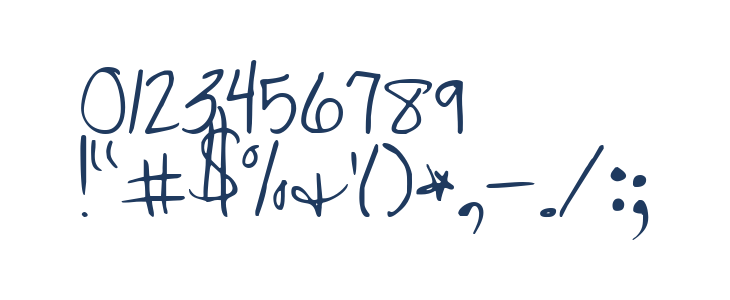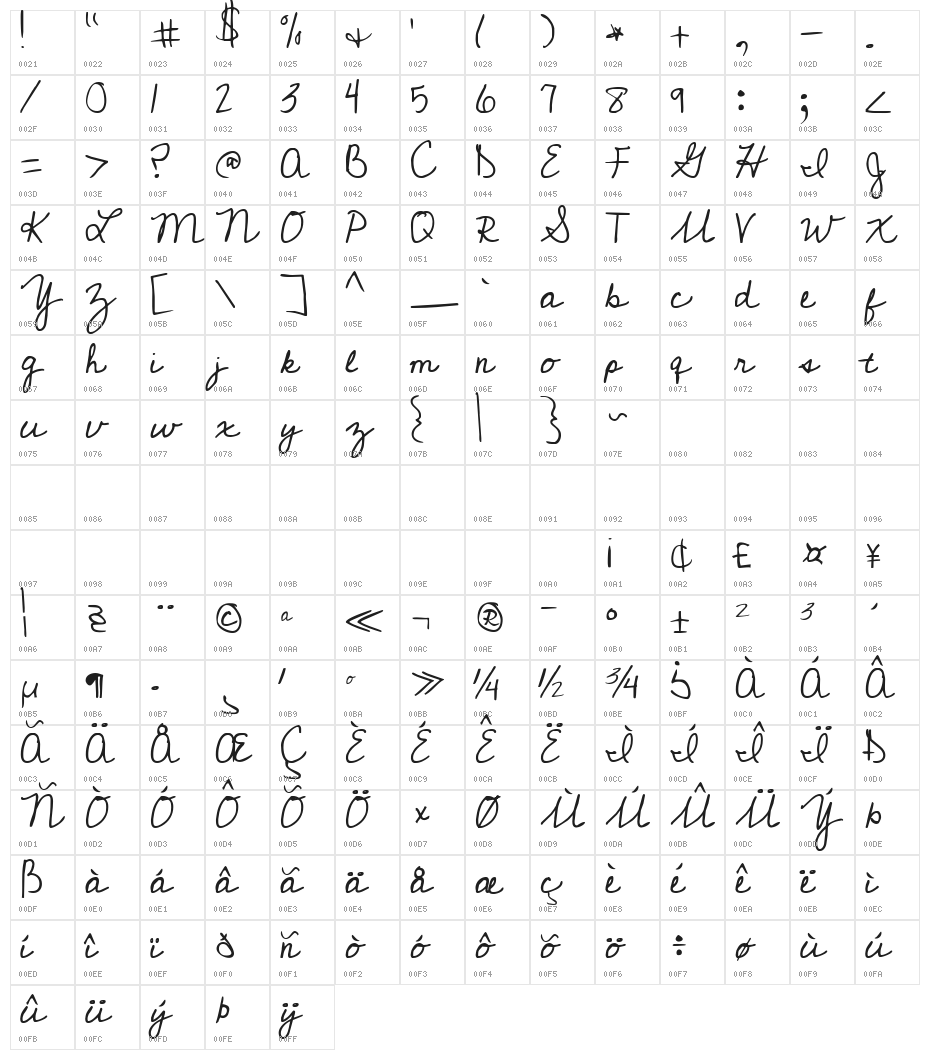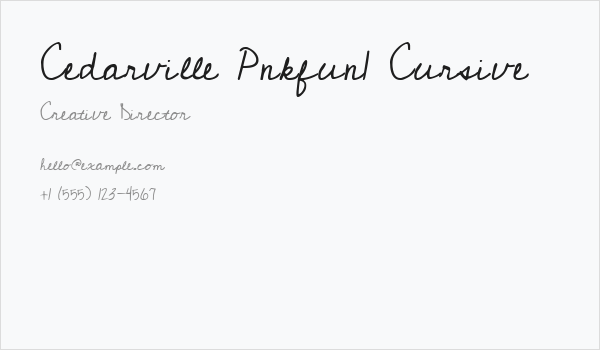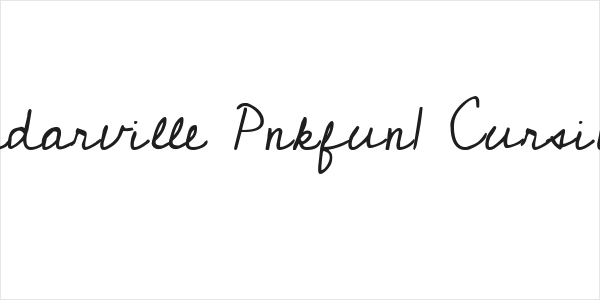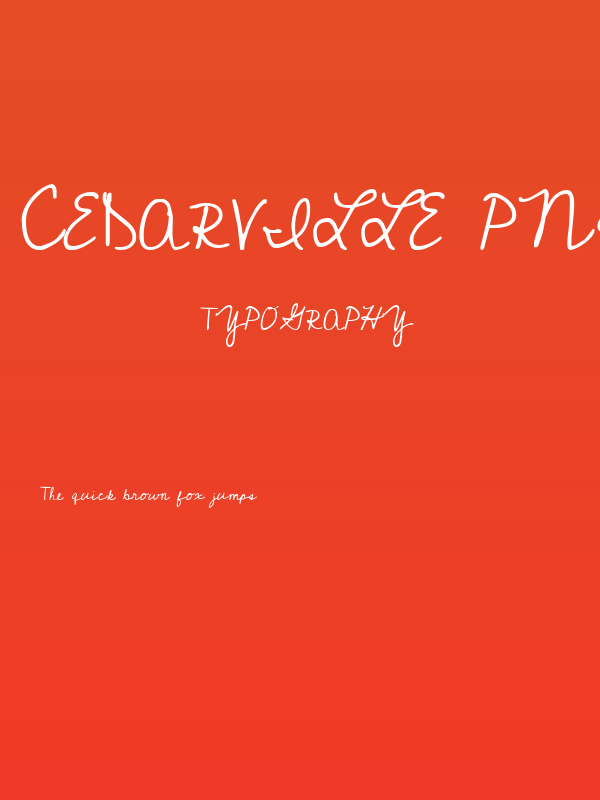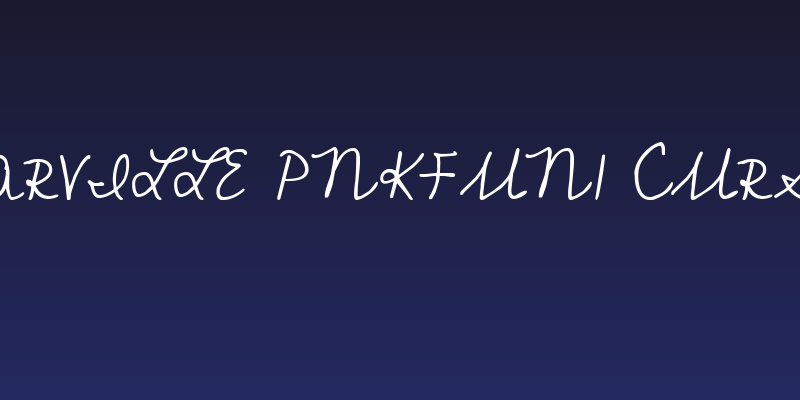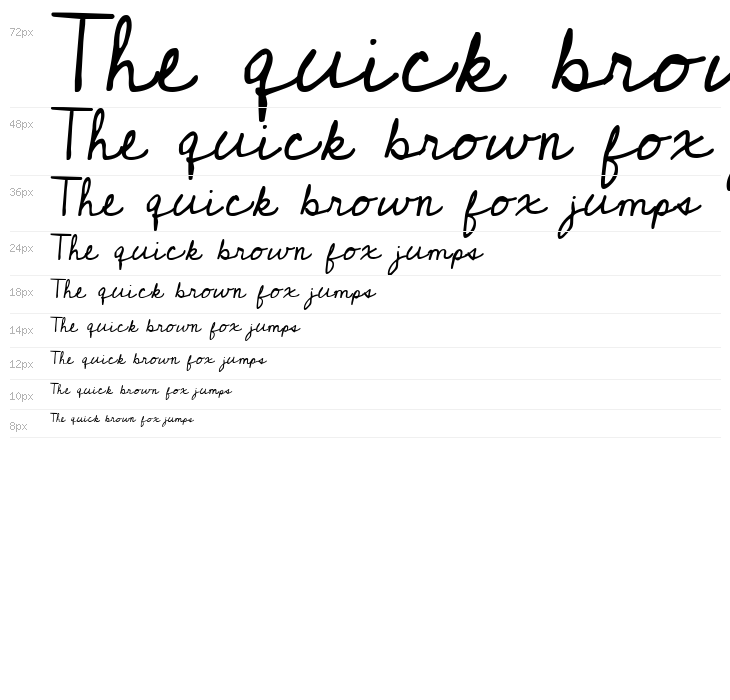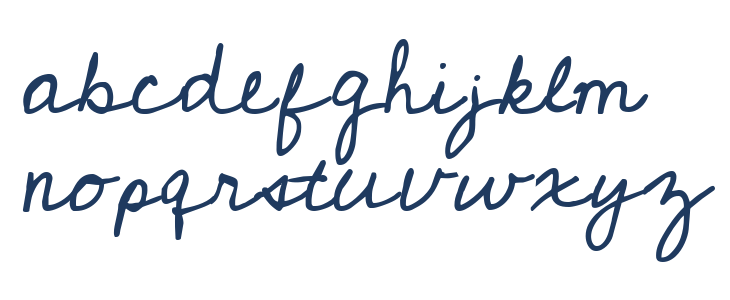
Cedarville Pnkfun1 Cursive Font
Cedarville Pnkfun1 Cursive Description
This font features a playful and casual cursive style, characterized by its smooth, flowing lines and handwritten appearance. The uppercase letters are distinct with a slight slant, while the lowercase letters maintain a consistent flow, enhancing readability. The numerals are clear and legible, matching the overall style of the alphabet. Special characters are creatively integrated, maintaining the font's cohesive look. This font exudes a friendly and approachable vibe, making it suitable for informal and creative projects.
| Proposed Projects | Ideal for greeting cards, invitations, personal branding, and creative projects that require a friendly touch. |